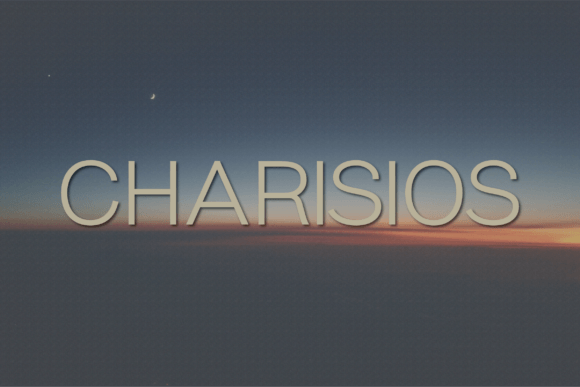
Introducing Charisios: The Ultimate Modern Sans Serif Typeface
In the world of typography, a font can make all the difference in the aesthetic and tone of a design. For designers and crafters looking for a modern, classy sans serif typeface, look no further than Charisios. This versatile font is perfect for a wide range of applications, from logos and weddings to invitations, quotes, advertisements, print, magazines, and more!
What is Charisios?
Charisios is a sans serif typeface that boasts a clean and sleek design, making it perfect for those looking for a modern and sophisticated look. The font contains upper characters, numbers 0-9, and a range of punctuation and symbols, ensuring that you have everything you need to create stunning designs.
Key Features of Charisios
- Modern and Classy Design: Charisios features a sleek and contemporary design that is sure to elevate your designs.
- Upper Characters, Numbers, and Symbols: The font includes a comprehensive set of upper characters, numbers 0-9, and a range of punctuation and symbols.
- Versatile: Charisios is perfect for a wide range of applications, from logos and branding to weddings, invitations, and more.
- Easily Readable: The font is designed to be easily readable, making it perfect for body text and captions.
Uses for Charisios
Charisios is an extremely versatile font, and its uses are endless. Here are a few ideas to get you started:
- Logos and Branding: Create a modern and sophisticated logo for your business or brand.
- Weddings and Invitations: Use Charisios to create beautiful wedding invitations, programs, and more.
- Advertisements: Make your advertisements stand out with this clean and modern font.
- Print and Magazines: Use Charisios for your print designs, including magazines, brochures, and more.
- Quotes and Social Media: Create stunning quote graphics and social media posts with Charisios.
Why Choose Charisios?
With so many fonts available, why choose Charisios? Here are a few reasons why:
- Unique and Modern Design: Charisios features a unique and modern design that will set your designs apart.
- Highly Versatile: The font is perfect for a wide range of applications, making it a great addition to your font library.
- Easily Readable: Charisios is designed to be easily readable, making it perfect for body text and captions.
- Professional and Sophisticated: The font has a professional and sophisticated feel, making it perfect for businesses and brands.
Tips for Using Charisios
Here are a few tips for getting the most out of Charisios:
- Experiment with Font Sizes: Charisios looks great in a variety of font sizes, from large headings to smaller body text.
- Pair with Other Fonts: Try pairing Charisios with other fonts to create a unique and interesting design.
- Use for Headings and Body Text: Charisios is perfect for both headings and body text, making it a great all-around font.
In conclusion, Charisios is a modern, classy sans serif typeface that is perfect for designers and crafters looking for a versatile and sophisticated font. With its clean design, comprehensive character set, and highly readable text, Charisios is sure to elevate your designs and take them to the next level. Whether you’re creating logos, weddings, invitations, or advertisements, Charisios is the perfect choice.